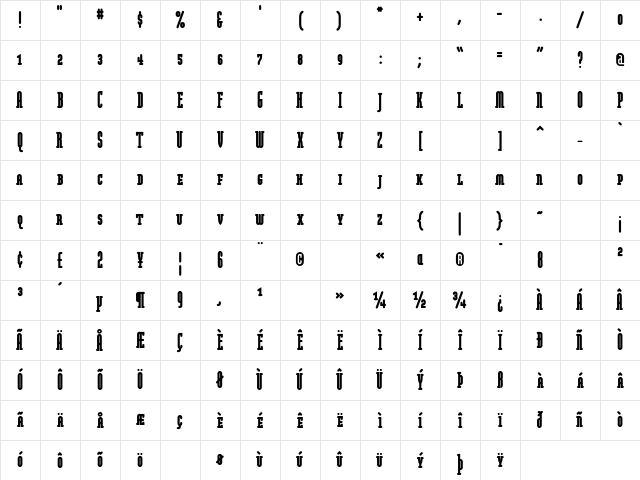
Complete Modula RoundSerifUltraSmCap glyph index. Displaying only characters natively supported by Modula RoundSerifUltraSmCap font.
Modula carries the refined structure of traditional serif typography, with bracketed terminals and considered proportions that communicate credibility and craft.